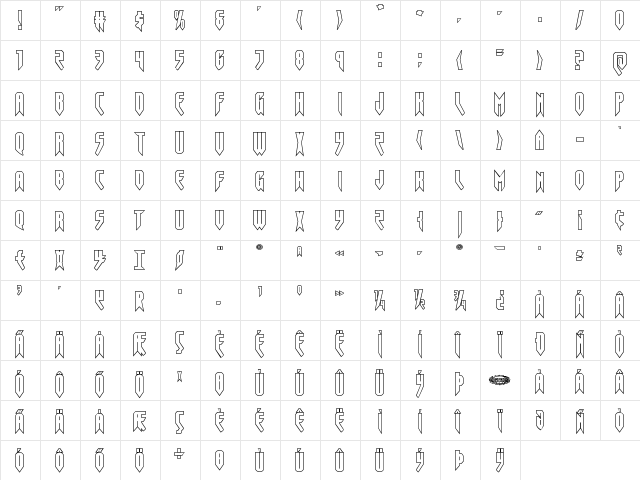
Opus Magnus Outline Regular
Design Context for Opus Magnus Outline Typeface
Opus Magnus Outline brings ornamental detail and strong personality to headlines and identities, where visual impact matters more than quiet functionality.
Font Pairing: Pair with a clean neutral sans-serif for body copy to let Opus Magnus Outline's character lead without overwhelming the composition.
Pro Tip: Use Opus Magnus Outline exclusively at display sizes — it was designed to be seen, not read at length. Let a neutral companion handle body copy.